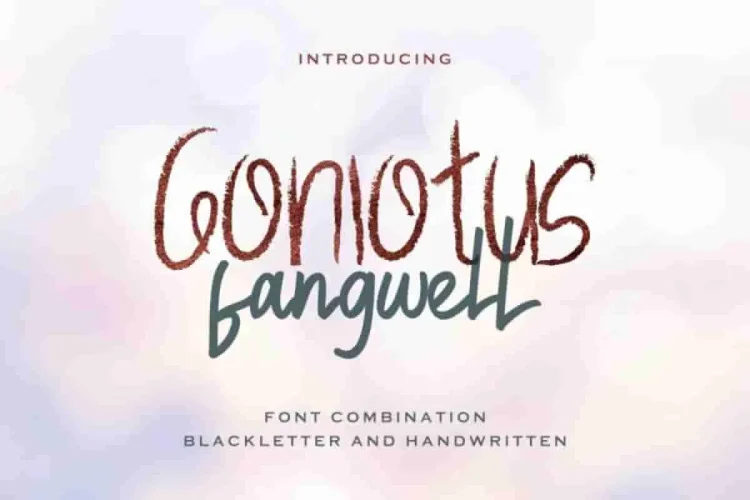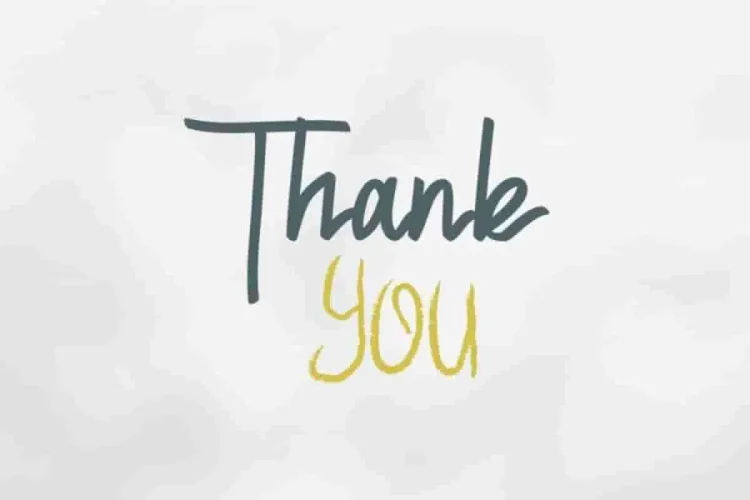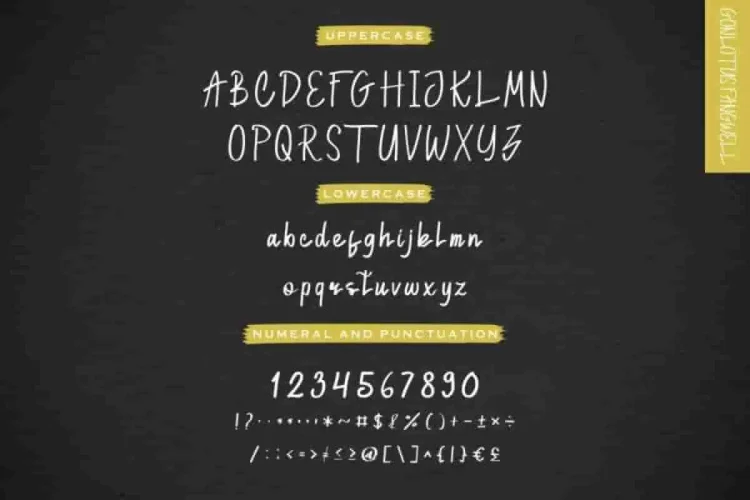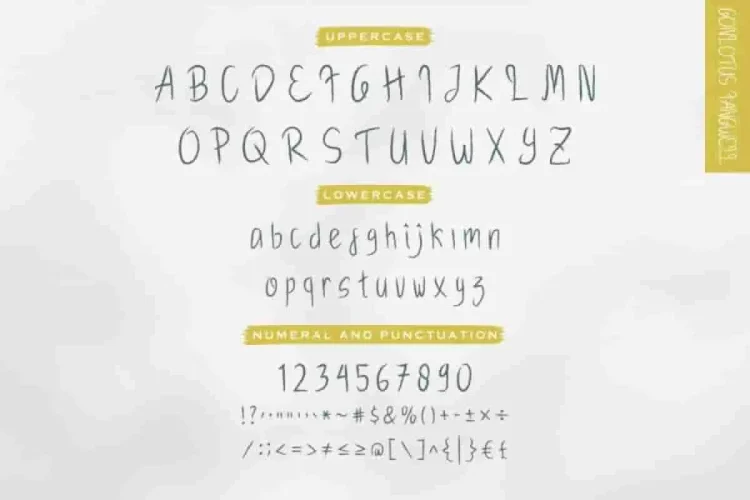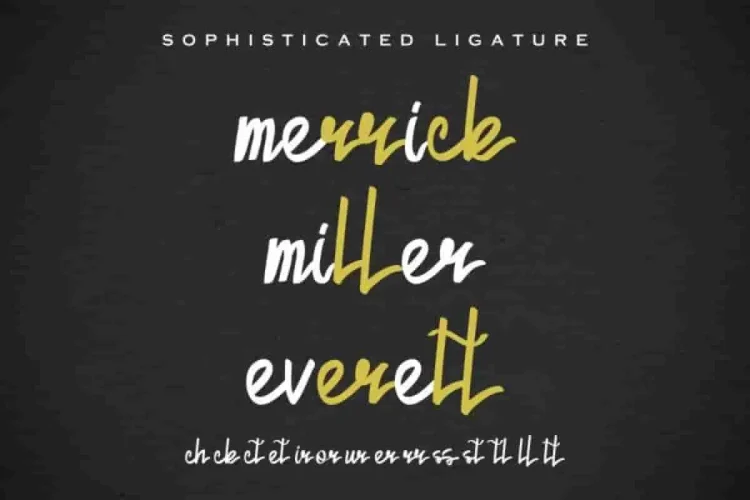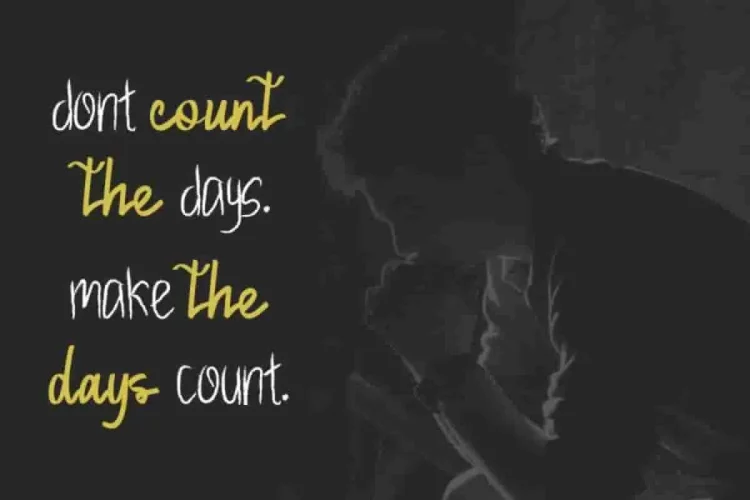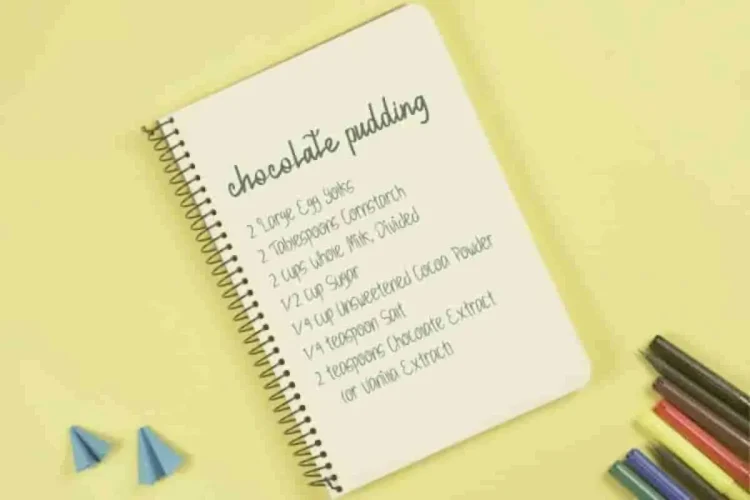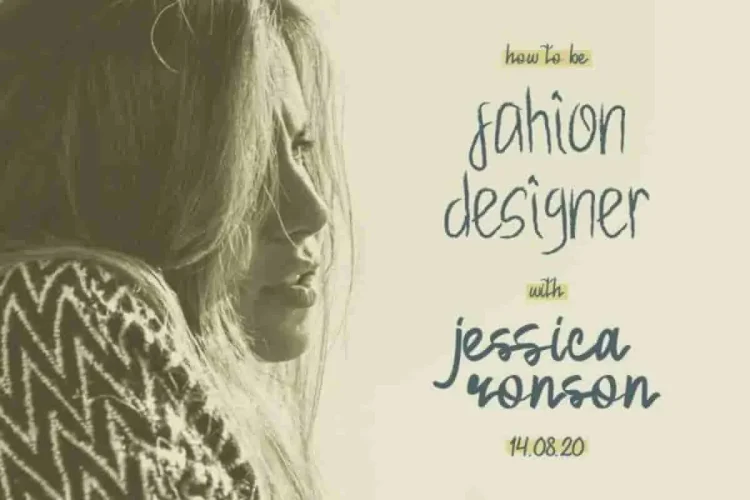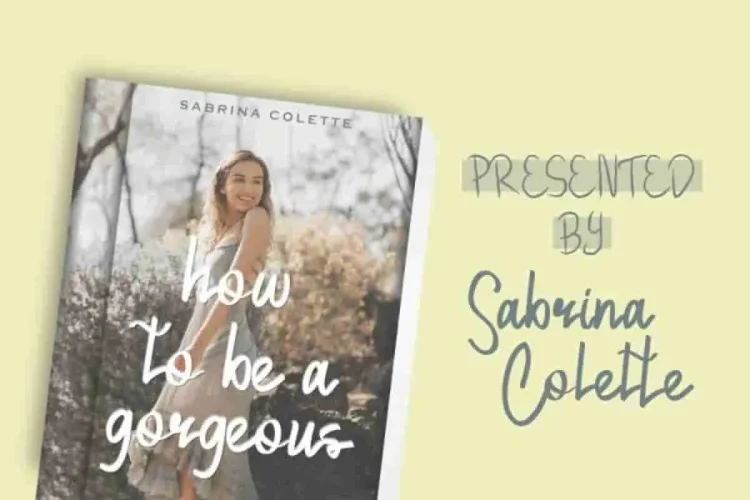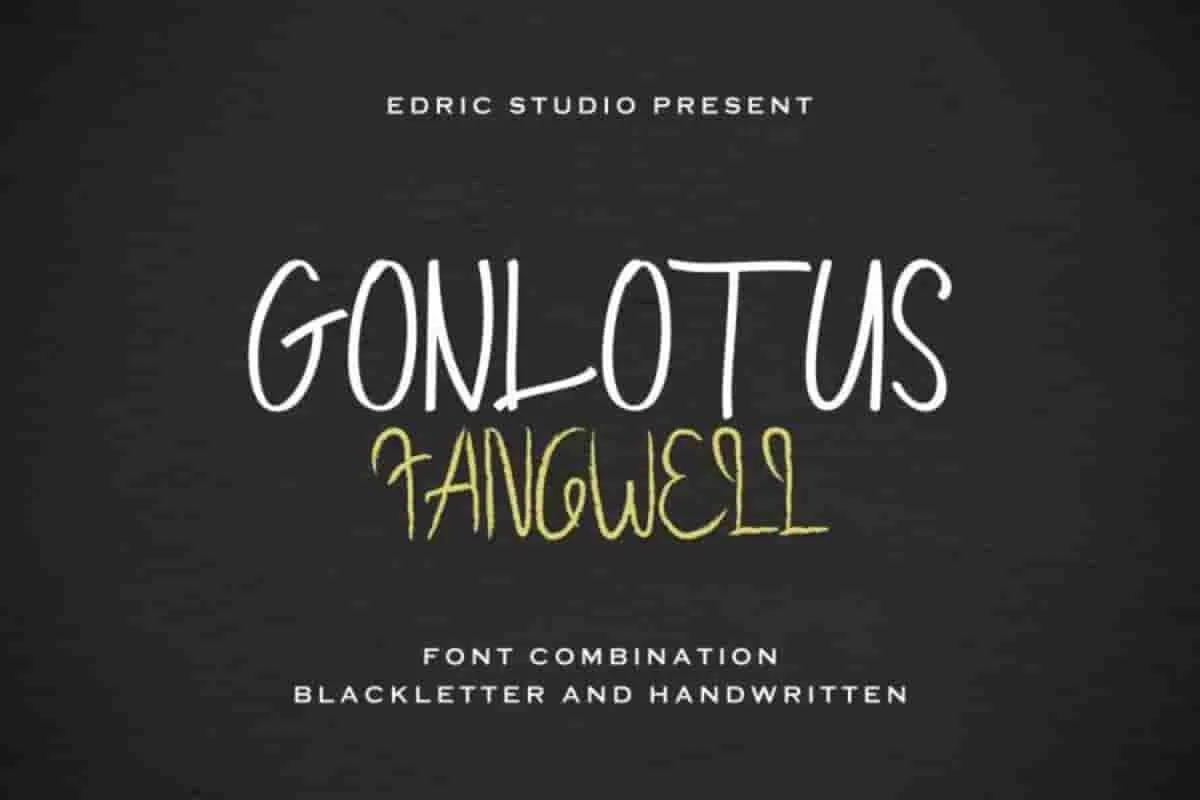
Gonlotus Fangwell Font Duo
Edric Studio in 2020. This time, we proudly introduce the newest font Gonlotus Fangwell Font Duo :)
This typeface was handcrafted by three typeface artists : Ali, Naufal and Suci. Made in Bandung and Garut – West Java, Indonesia. Gonlotus Fangwell Font Duo has two unique and exclusive styles, so you can use it on any cases and explore further more.
This is a font duo with two styles : Handwriting signature and Display Grunge.
Specifically, Gonlotus Fangwell will suit for a wide range of projects (need extended license), including : logotype, flyer, stationery, business card, signage, flyer, brochure etc.